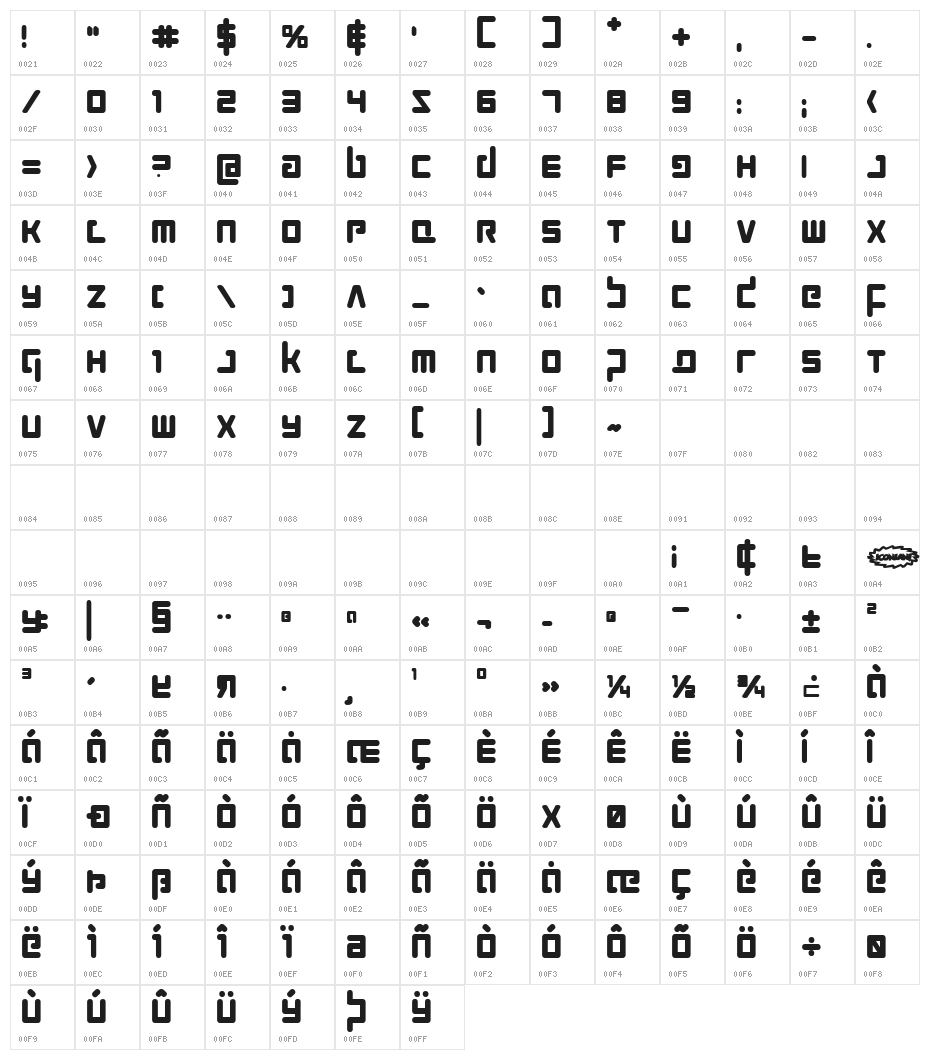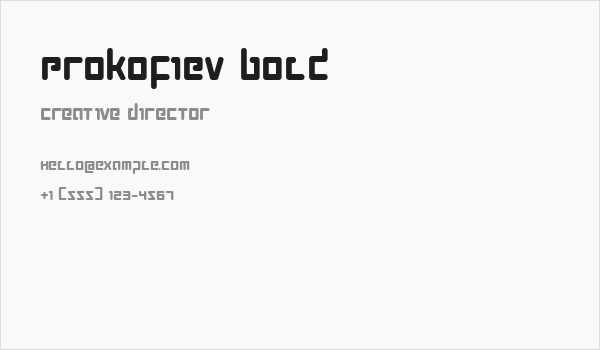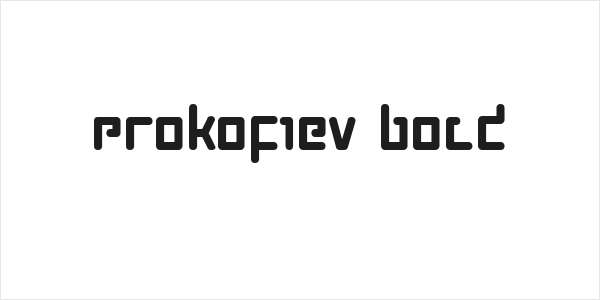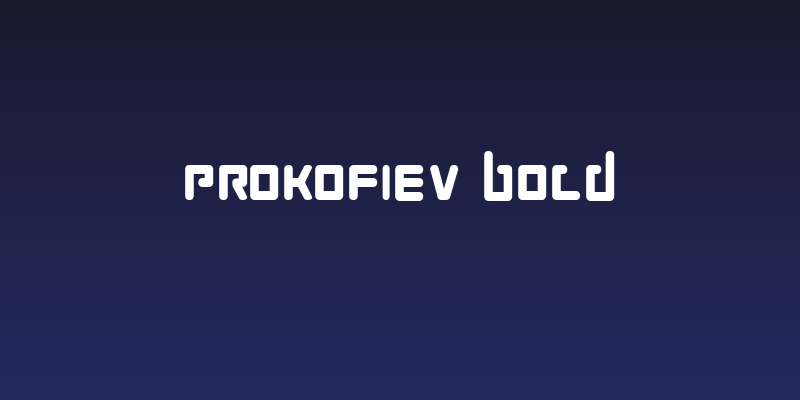
Prokofiev Bold Font
Prokofiev Bold Description
This font features a bold, geometric design with rounded edges, giving it a modern and futuristic appearance. The characters are uniformly thick, contributing to a strong visual impact. The uppercase and lowercase letters maintain a consistent style, with a slight variation in height and width. The numerals are distinct and easily readable, matching the overall boldness of the alphabet. Special characters are designed to complement the letters and numbers, maintaining the same geometric and rounded style. This font is ideal for projects that require a contemporary and bold aesthetic.
Proposed ProjectsIdeal for branding, posters, headlines, and digital interfaces that require a strong, modern look.